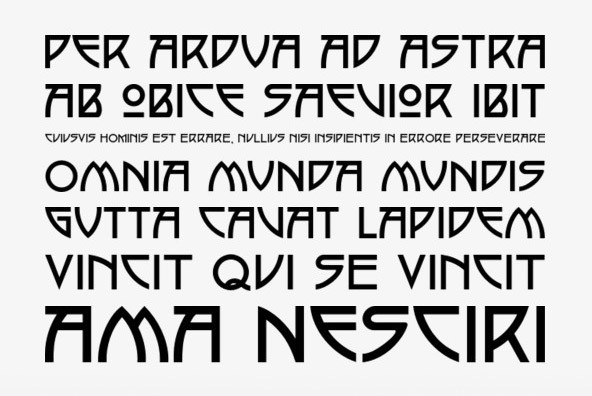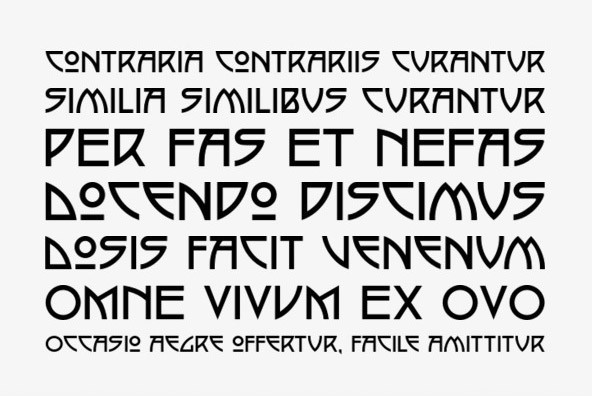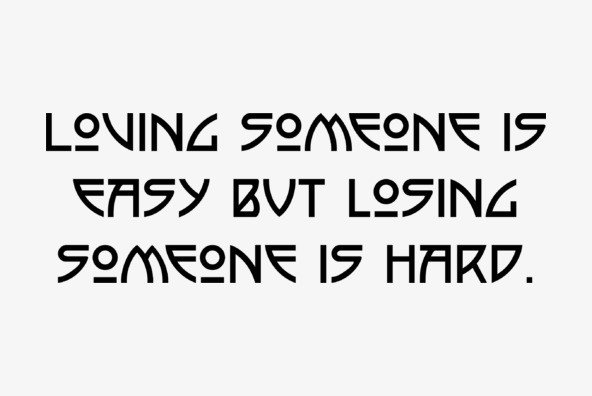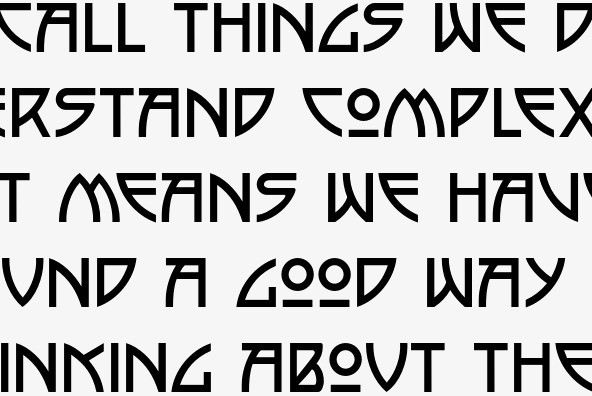
P22 Arts And Crafts Regular
In the early 20th Century, Dard Hunter designed many of the the more distinctive graphics for the Roycroft artists community of East Aurora, New York.